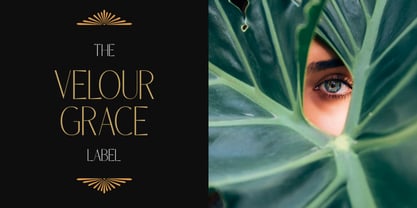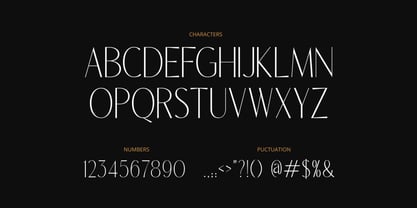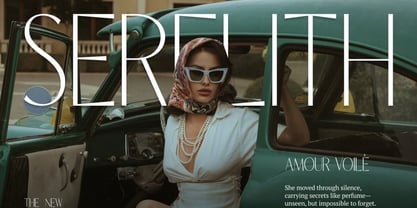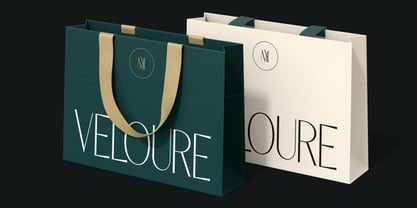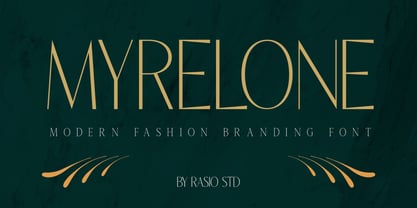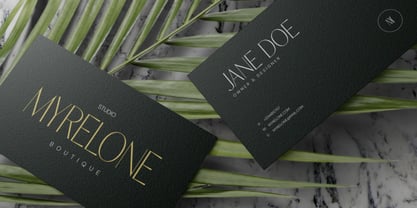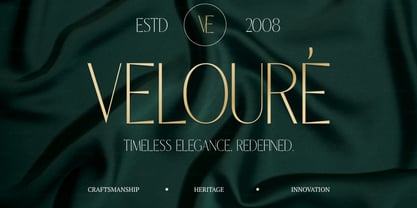
Myrelone
by Rasio Studio
The Myrelone Font Family was designed by Fajar Indra and published by Rasio Studio. Myrelone contains 1 styles. More about this family
Myrelone is a sleek and elegant sans serif font designed for high-end fashion and luxury branding. With its tall, thin letterforms and delicate spacing, Myrelone exudes class, sophistication, and modern charm. Perfect for luxury logos, editorials, beauty branding, or wedding stationery, this font shines in any context that demands style and refinement. Relevance and Use Cases is perfect for fashion logo, cosmetic branding, wedding invitation, high-end magazine, feminine product packaging, luxury boutique, editorial design, personal branding, modern business card, elegant web design.